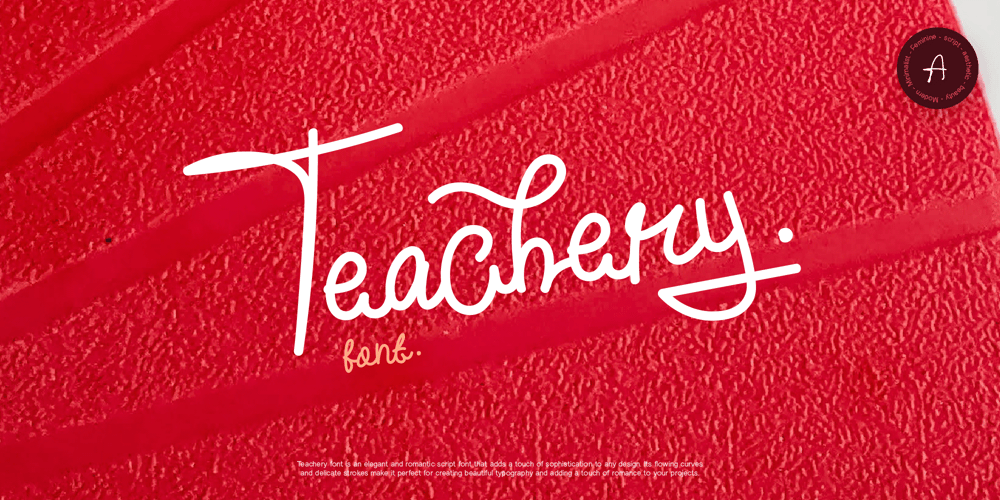
Teachery Font Family was designed by Alif Naufal Muzakki and published by Phoenix Group. Teachery contains 1 styles and family package options. Teachery font is an elegant and romantic script font that adds a touch of sophistication to any design. Its flowing curves and delicate strokes make it perfect for creating beautiful typography and adding a touch of romance to your projects.